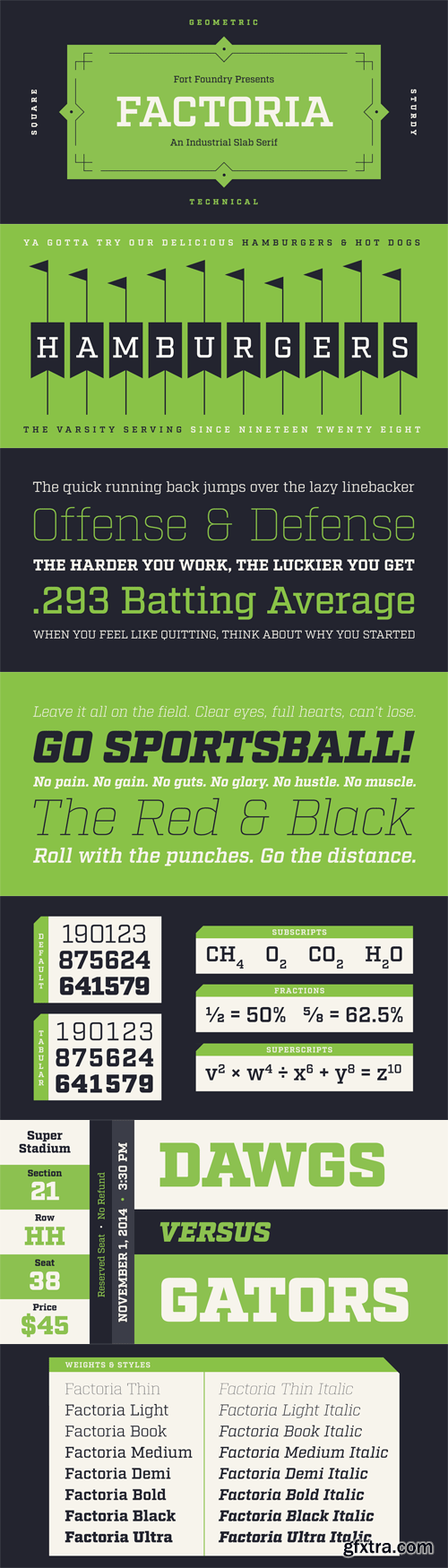
Factoria Font Family
Born out of Industry, Factoria is a geometric, square slab. The hard-working family can jump from the side of an industrial building and into a sports magazine in a jiffy. The lighter weights exhibit a clean, no-nonsense vibe while the thicker weights exude strength and character. Italics felt like a necessity as the square slab genre and its uses call for type on the move. The set intentionally doesn’t diverge far from the roman style and includes visual corrections as needed. Factoria includes eight weights ranging from Thin to Ultra with corresponding italics. The slab serif pairs great with its sans-serif counterpart, Industry. Numerous OpenType features have been included to suit different design needs. Features include: Tabular figures, fractions, subscripts, superscripts, numerators, and denominators.